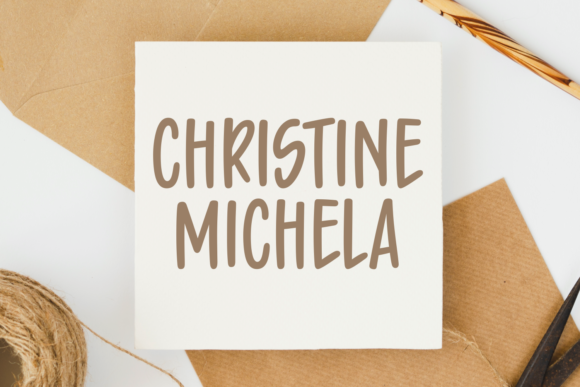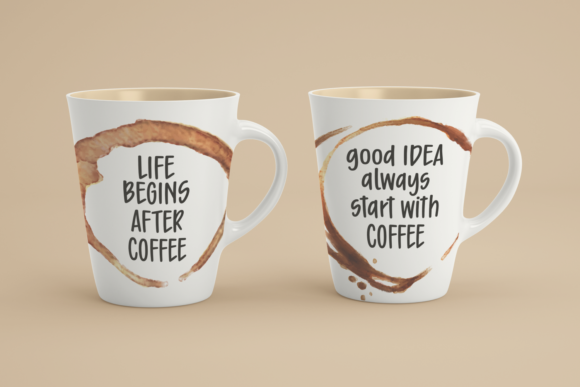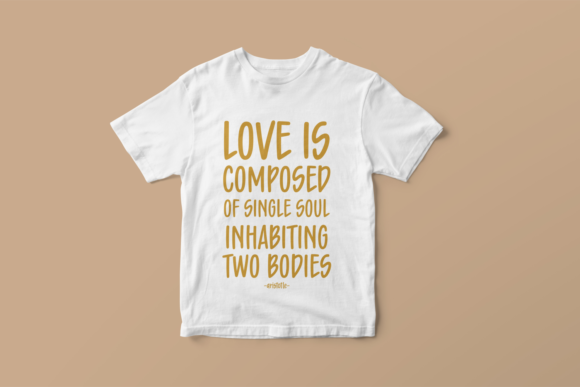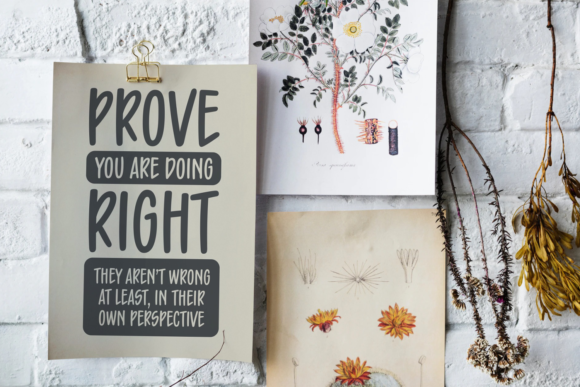
Christine Michela Font
About Christine Michela Font
Christine Michela is a unique handwritten font with a casual appearance. Get inspired by its light-hearted nature, and turn any crafting project into a true piece of art.
This lovely script works best for Valentine’s Day crafts, greeting cards, invitations, T-Shirts, and large texts as well.